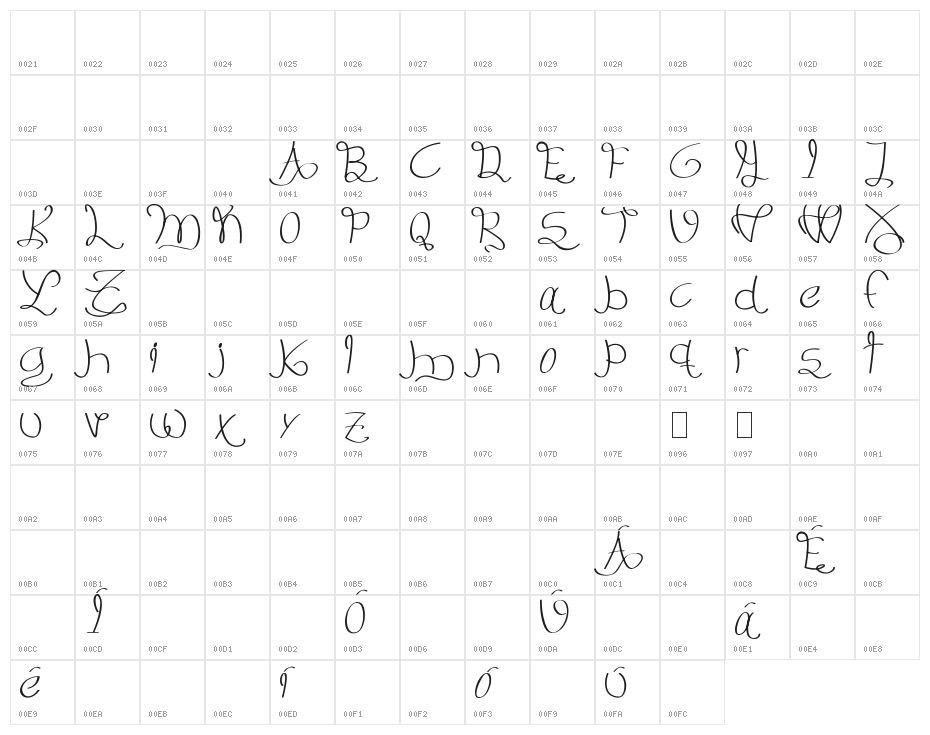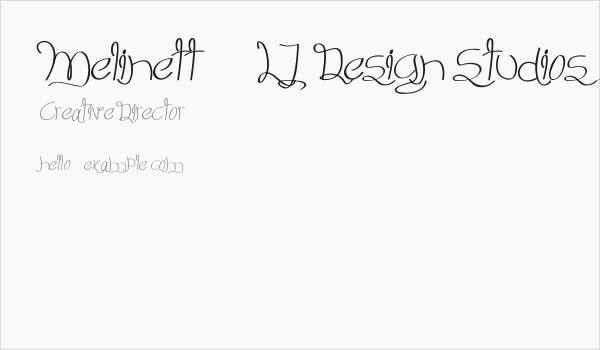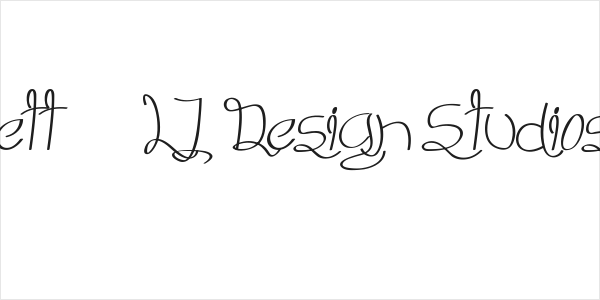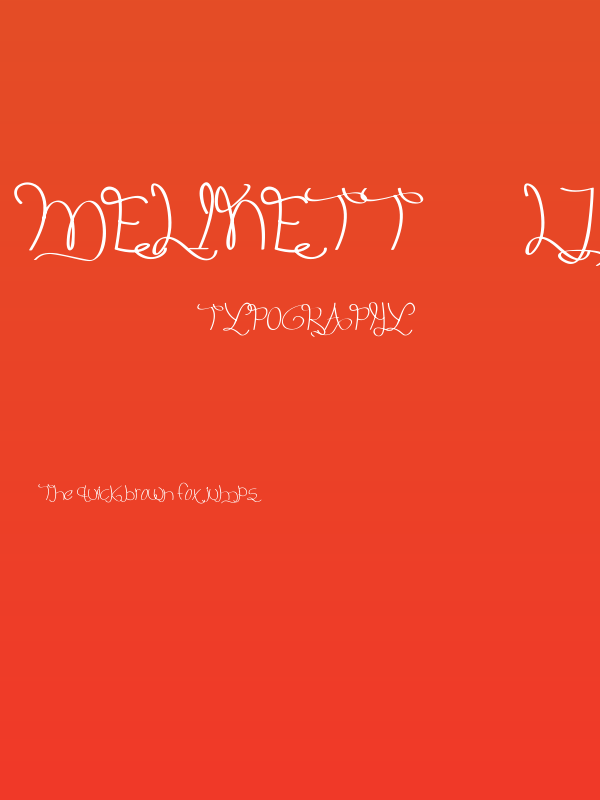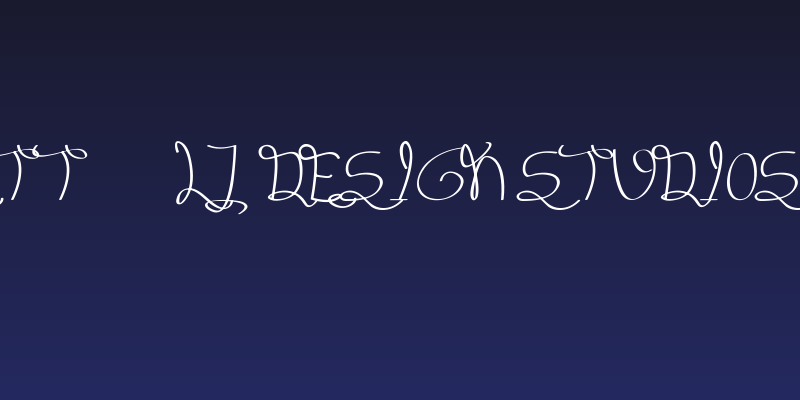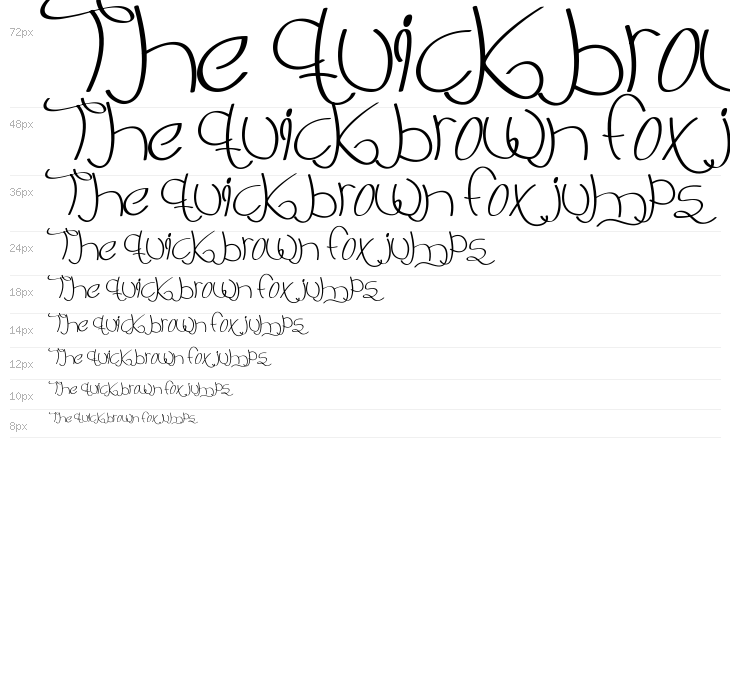
Melinett 3 - LJ-Design Studios Italic Font
Melinett 3 - LJ-Design Studios Italic Description
This font features an elegant, flowing script style with intricate loops and swirls, giving it a whimsical and artistic appearance. The uppercase letters are particularly ornate, with each character exhibiting unique flourishes that add a sense of movement and grace. The lowercase letters maintain a consistent style, with smooth curves and a slightly playful touch. The overall design is cohesive, with a harmonious balance between the elaborate uppercase and the more restrained lowercase. This font exudes a sense of creativity and charm, making it suitable for projects that require a touch of elegance and personality.
Use CaseLogos, Invitations, Artistic projects
Proposed ProjectsIdeal for wedding invitations, greeting cards, branding, and artistic projects.